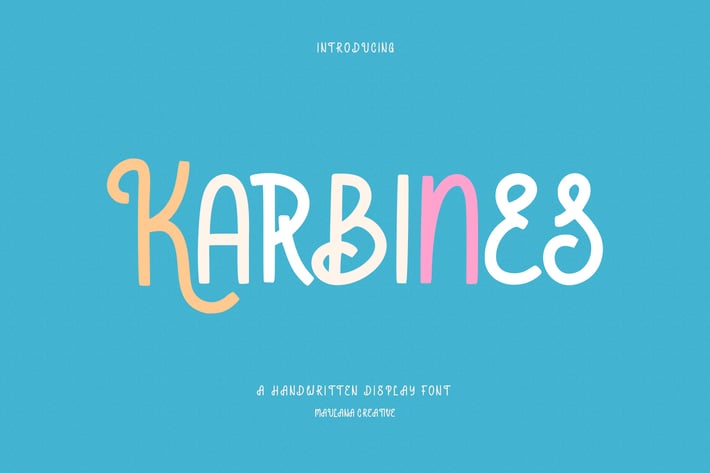
Karbines Handwritten Display Font
Karbines is a modern handwritten display font. With medium consist stroke with sharp edge, fun character with a bit of ligatures and alternates. To give you an extra creative work. Karbines font support multilingual more than 100+ language. This font is good for logo design, Social media, Movie Titles, Books Titles, a short text even a long text letter and good for your secondary text font with sans or serif. Make a stunning work with Karbines font.